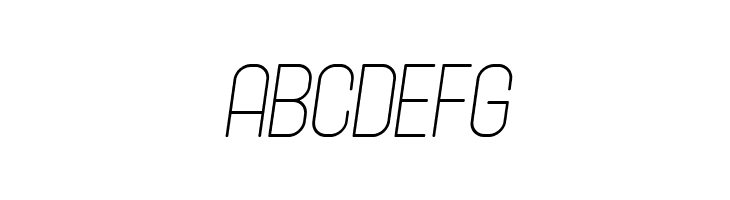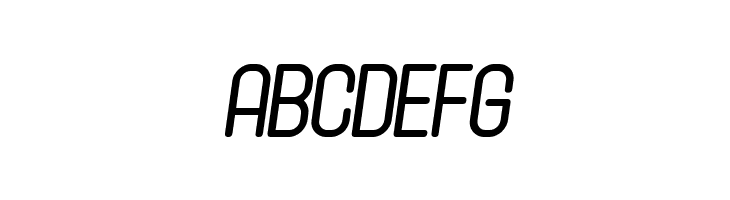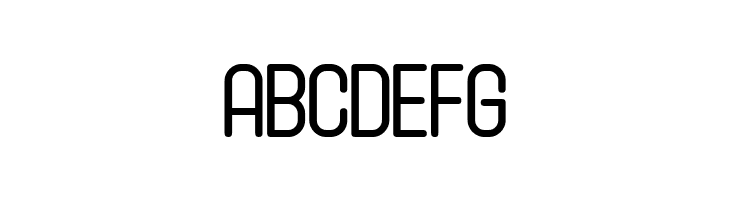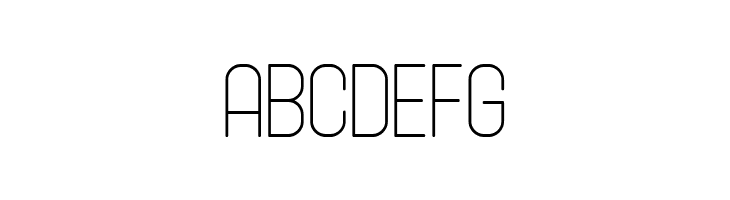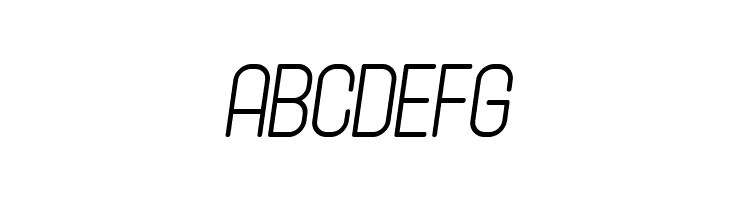
A bold, condensed, and italicized font with a futuristic and geometric design.
A bold, futuristic font with geometric, three-dimensional outlines.
( Out of Step Font Company - Dan Steinbok - outofstepfontco.com )
A bold, textured, and decorative font with a hand-drawn, three-dimensional appearance.
( TomChew - Tommy Suhartomo )
A modern, outlined font with geometric lines and consistent stroke width.
( TomChew - Tommy Suhartomo )
A modern italic font with smooth lines and a sleek, dynamic style.
( Fonts bomb )
( Fonts by Lavenia )
A bold, geometric font with a stencil-like, industrial design.
A sleek, italicized font with narrow, elongated characters and a modern aesthetic.
A bold, italicized font with a modern, sleek, and slightly condensed style.
A modern, rounded sans-serif font with uniform strokes and balanced spacing.
A sleek, modern font with geometric lines and a minimalist aesthetic.
A modern, geometric sans-serif font with rounded edges and uniform stroke width.
A sleek, italicized font with a modern, streamlined design.
A futuristic, stencil-like font with bold, rounded characters and consistent stroke thickness.
( Fonts by Sherleen Christie Soetanto )
A bold, decorative font with road marking patterns for a playful look.
A bold, geometric font with clean lines and a modern aesthetic.
A futuristic, geometric font with rounded edges and consistent stroke width.
Elegant serif font with an italic slant, ideal for sophisticated designs.
A bold, classic serif font with moderate contrast and slightly condensed proportions.
A bold, expressive handwritten font with a dynamic brush-like texture.
A lively handwritten font with fluid, dynamic strokes and a casual feel.
A flowing, elegant script font with a natural handwritten style.
A dynamic and expressive handwritten font with fluid, flowing letterforms.
A bold, expressive script font with fluid, cursive letterforms and elegant flourishes.
( Fonts by dcoxy )
A bold, multi-line decorative font with a geometric and architectural style.
A bold, decorative font with a 3D sketch effect and rugged outlines.
A bold, geometric font with a modern and professional style.
( Fonts by The Jackal Animatronic )
A playful, animal-themed decorative font with whimsical character designs.
( Fonts by Hanzel Space )
A bold, distressed font with a vintage, rugged appearance.
( Fonts by epiclinez )
A bold, graffiti-inspired font with a playful, energetic style and thick outlines.
( Fonts by Mariyana )
A dynamic, cursive script font with elegant, flowing strokes.